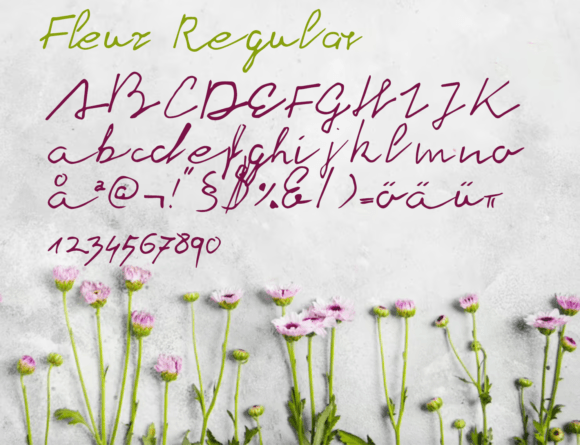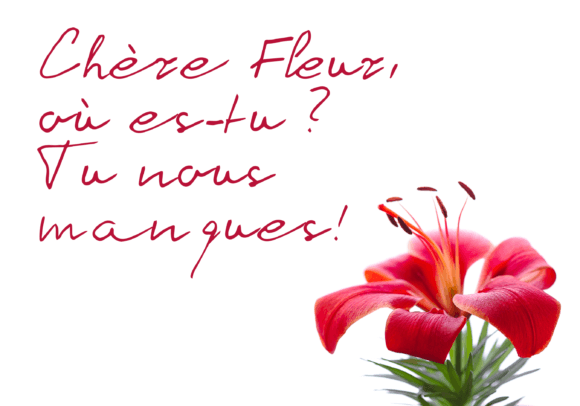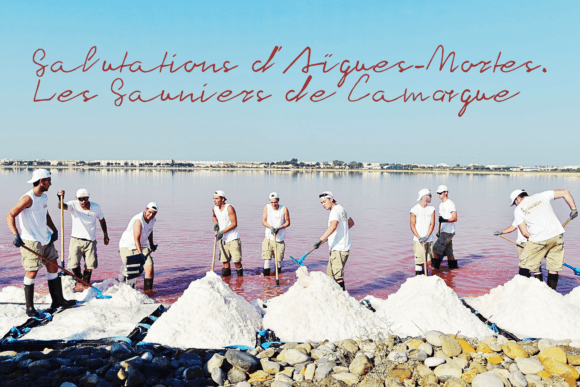
The Perfect Script Font for Your Creative Vision
Have you ever found yourself scribbling down a brilliant idea on a sticky note, only to realize that your handwriting is a bit too messy for a presentation or a professional website? We’ve all been there, and it’s moments like these that make us wish we had a font that captured the essence of our personal handwriting, but in a more polished and modern way.
Enter the Fleur Font, a beautiful script font designed to bring your creative vision to life. With its elegant stroke width reminiscent of a string pen, Fleur Font offers support for all characters, making it perfect for both traditional media and the web. Whether you’re designing inspirational wall posters or creating a personal brand identity, Fleur Font is the perfect choice for adding a touch of personality to your work.
Fleur Font Key Features
- Size: The font size is available in multiple weights, ranging from 100 to 900, providing flexibility for various design needs.
- Resolution: Fleur Font supports high-resolution display, making it suitable for use in print and digital media, including high-definition screens.
- Unique Characteristics: Fleur Font features a distinctive, elegant script design with flowing lines and delicate flourishes, ideal for creating sophisticated and romantic typography.
- Language Support: Fleur Font supports multiple languages, including English, Spanish, French, German, Italian, and many others, making it a versatile choice for global design projects.
- Font Pairing: Fleur Font pairs well with serif and sans-serif fonts, allowing designers to create visually appealing and harmonious typography combinations.
Fleur Font Review
Fleur Font is a beautiful, elegant script font designed to evoke the feeling of delicate flowers. I’ve had the chance to work with it on a few projects, and here’s my honest review.
- Unique character: Fleur Font has a distinct, whimsical feel that’s perfect for adding a touch of personality to your designs.
- Highly legible: Despite its cursive nature, Fleur Font is surprisingly easy to read, making it a great choice for body text or headlines.
- Customizable: With a wide range of weights and styles to choose from, you can tailor Fleur Font to fit your design needs.
- Limited support: Fleur Font may not be compatible with all font formats or software, which can be frustrating if you need to use it for a specific project.
- Not ideal for small text: While Fleur Font is legible, it’s not the best choice for small text sizes, as the characters can become difficult to read.
Overall, I think Fleur Font is a beautiful addition to any designer’s toolkit. While it has some limitations, its unique character and high legibility make it a great choice for a wide range of projects. With a little creativity and planning, you can make the most of this lovely font.
Getting the Most Out of Fleur Font
For the best results, use Fleur Font in conjunction with elegant and whimsical design elements, such as florals or pastel colors. Experiment with different font sizes and styles to create visual interest and emphasis.
Fleur Font is ideal for:
- Floral-themed designs and packaging